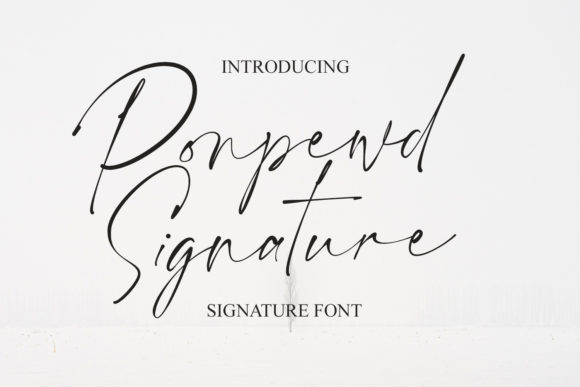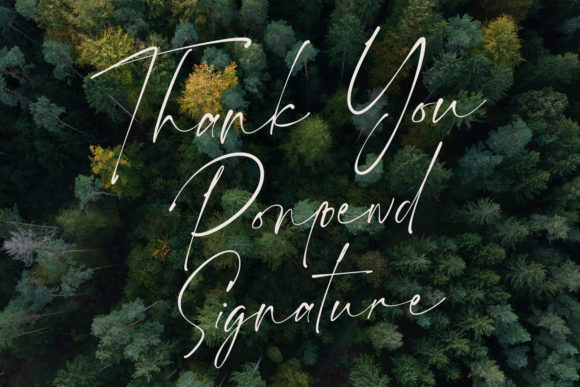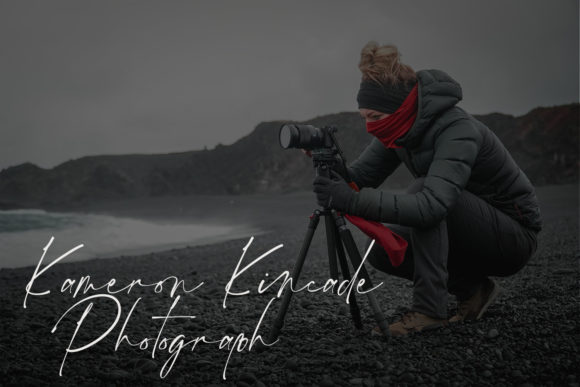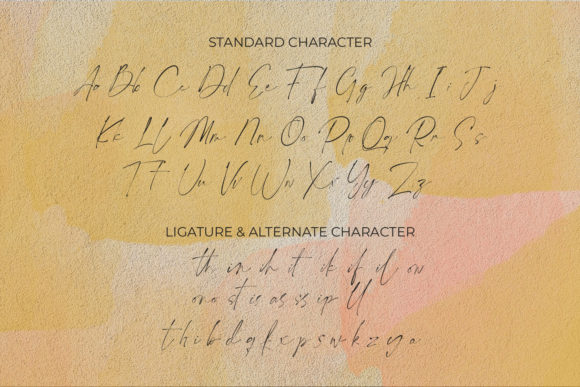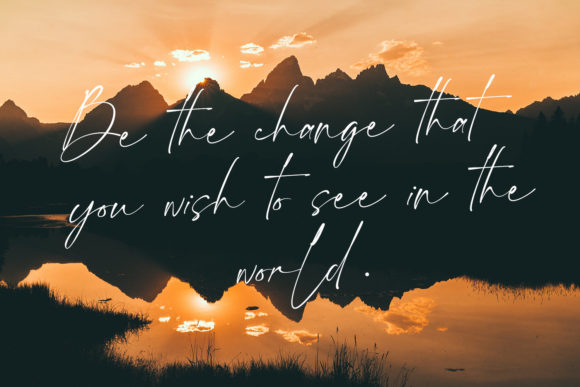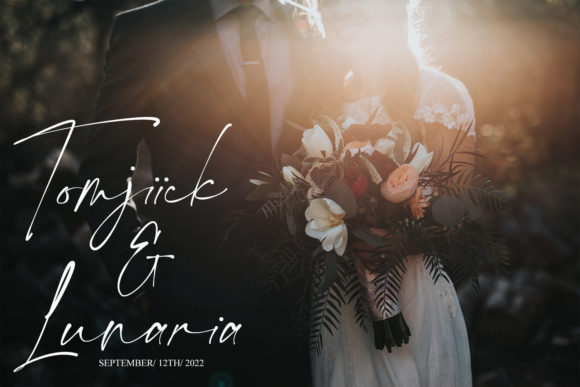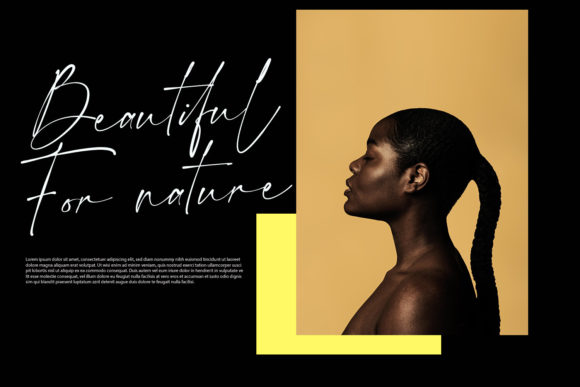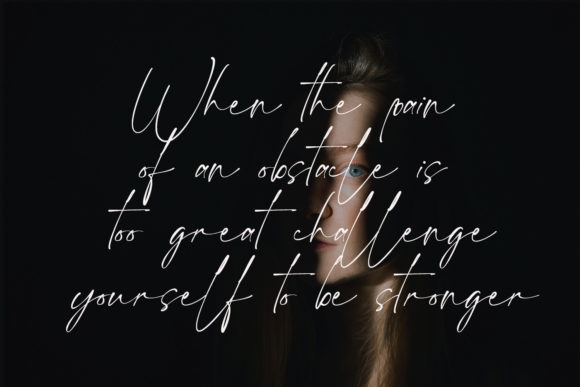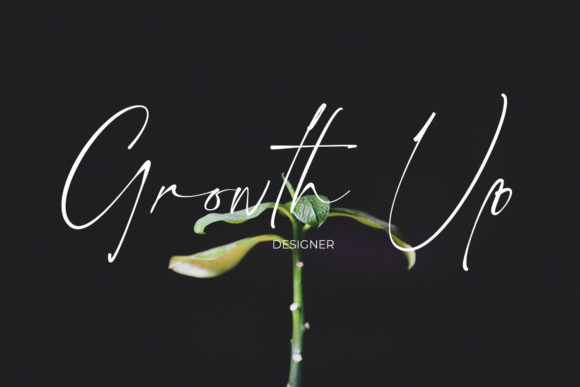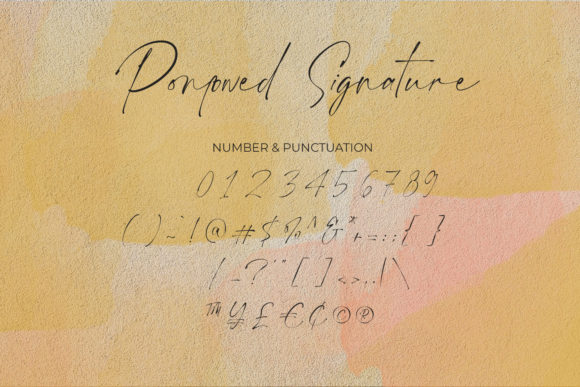
Ponpewd Signature Script Font
About Ponpewd Signature Script Font
Ponpewd Signature Script is a lovely script font featuring charming, playful characters that seem to dance along the baseline. Add this font to your most creative ideas, and notice how it makes them stand out!